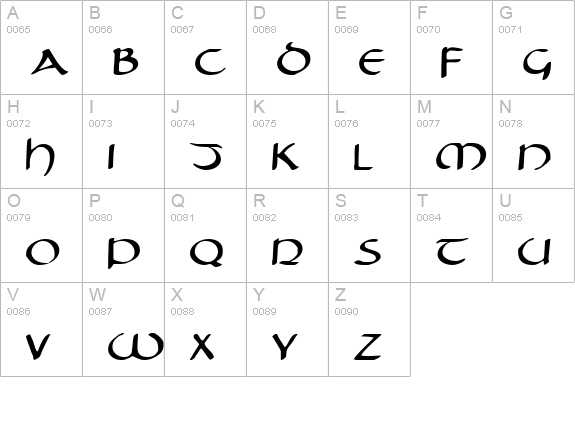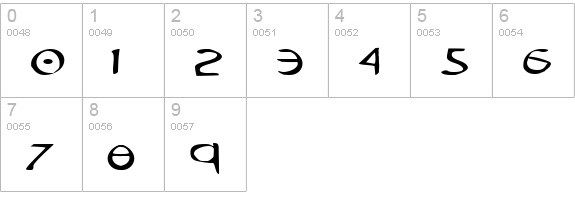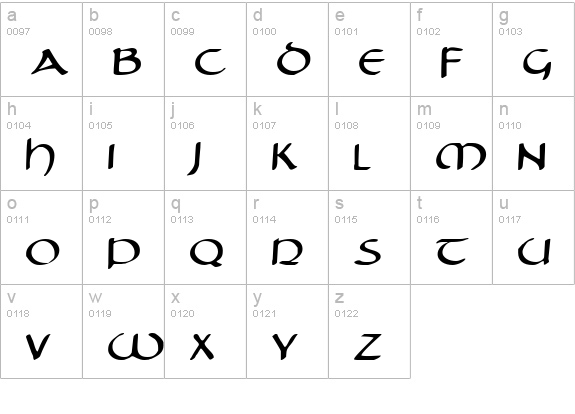
Tristram Expanded is a distinctive, extended-width variant in the Tristram typeface family \xE2\x80\x94 well suited to design and typography projects.
Tristram Expanded font is a modern and versatile typeface that is perfect for a wide range of design projects. Its sleek and elegant design features elongated letterforms that exude sophistication and style. With its clean lines and balanced proportions, Tristram Expanded is a great choice for branding, headlines, and other display purposes. What sets Tristram Expanded font apart is that it is not only visually striking but also incredibly practical. Its expanded width allows for better legibility and impact, making it ideal for catching the eye of the reader. Whether you're designing a poster, logo, or website, Tristram Expanded font will surely leave a lasting impression. And the best part? Tristram Expanded font is completely free to download at FontsMarket.com. Yes, you read that right – this high-quality font is available at no cost, making it accessible to designers of all levels. Don't miss out on the opportunity to elevate your designs with the stunning Tristram Expanded font today!